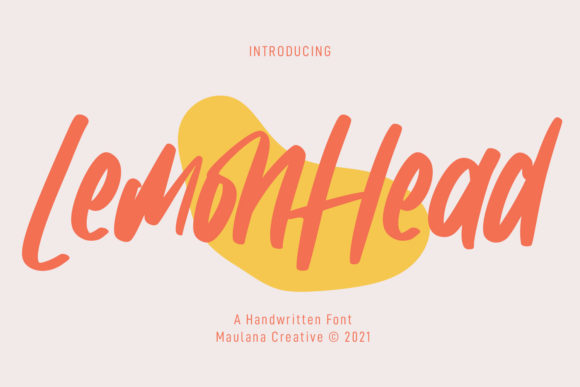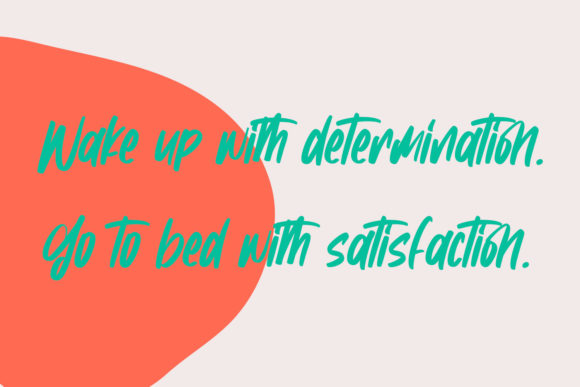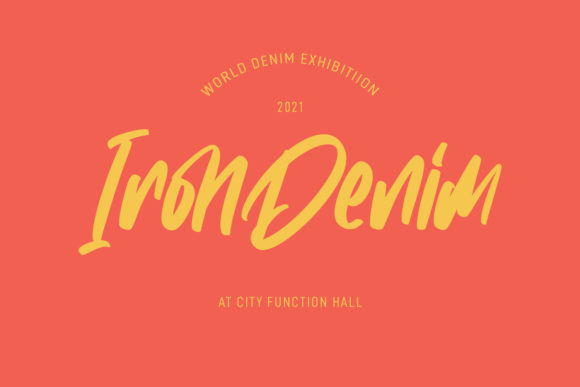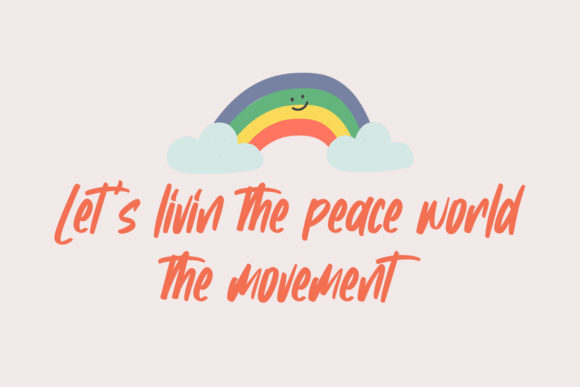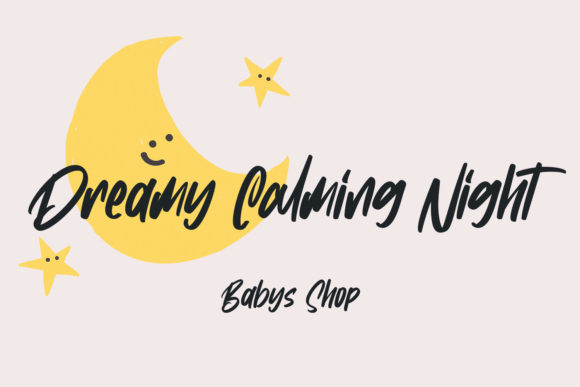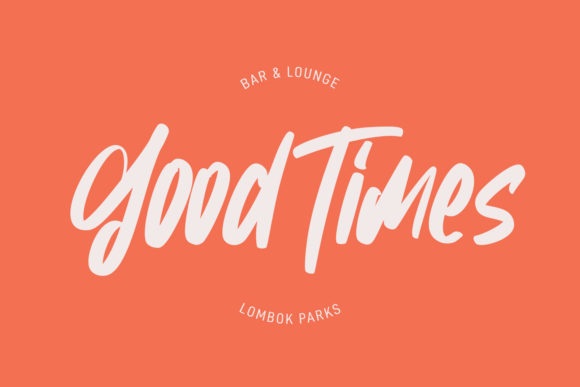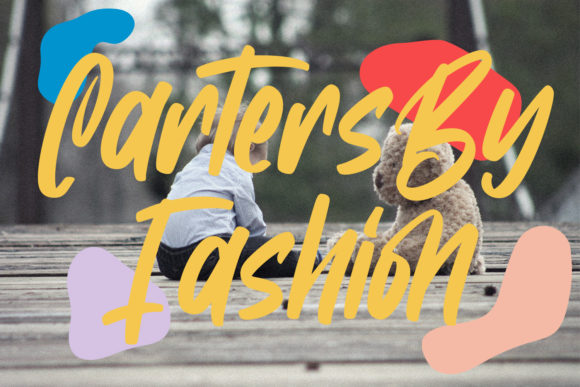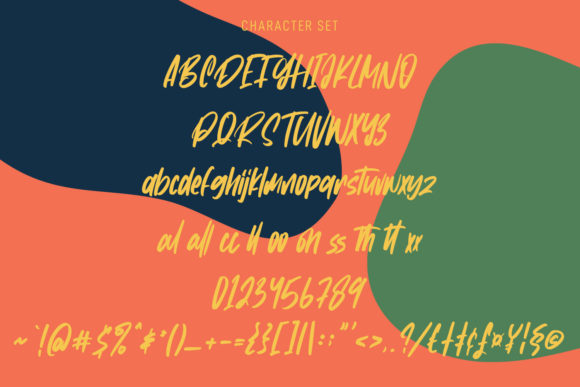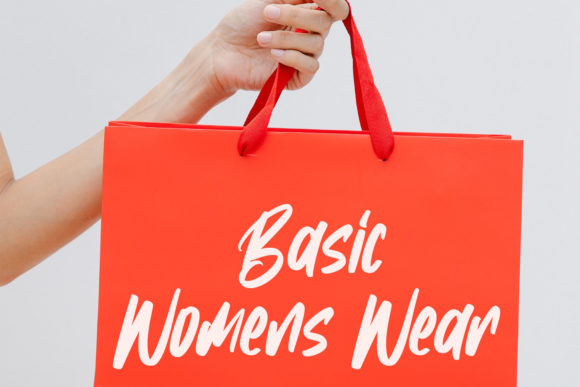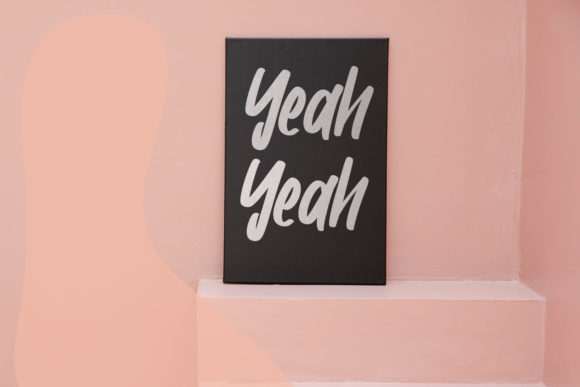
Lemonhead Font
About Lemonhead Font
Lemonhead is a casual and vibrant paint-brushed handwritten font that adds a playful touch to a variety of crafting ideas. Whether you’re working on cards, branding projects, labels, or any other creative endeavor, Lemonhead can elevate the overall design. Its casual and relaxed style brings a sense of informality and energy to your creations. By confidently incorporating Lemonhead into your favorite designs, you’ll be amazed by the lively outcome it generates. Its unique brush strokes and dynamic appearance create a visually appealing and engaging effect that will captivate viewers.